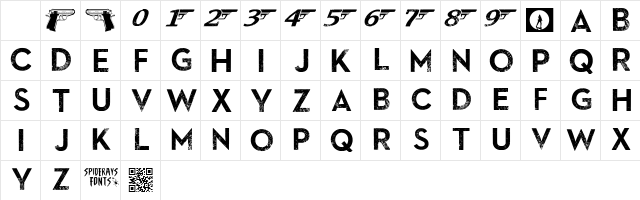
Complete SkyFall Done Regular glyph index. Displaying only characters natively supported by SkyFall Done Regular font.
SkyFall Done is a composed and adaptable typeface that performs quietly and consistently across a wide range of design contexts.